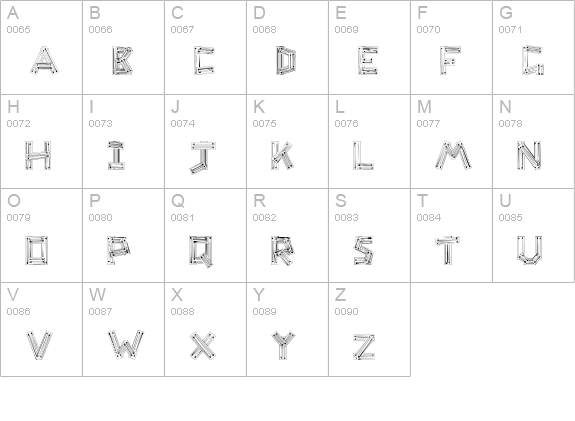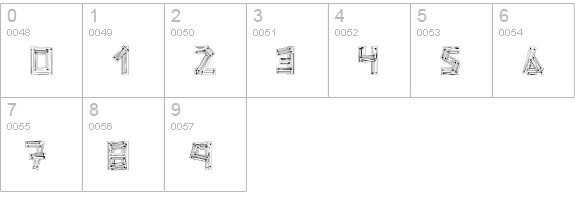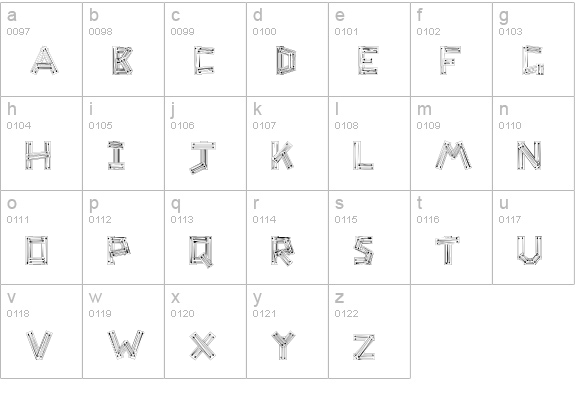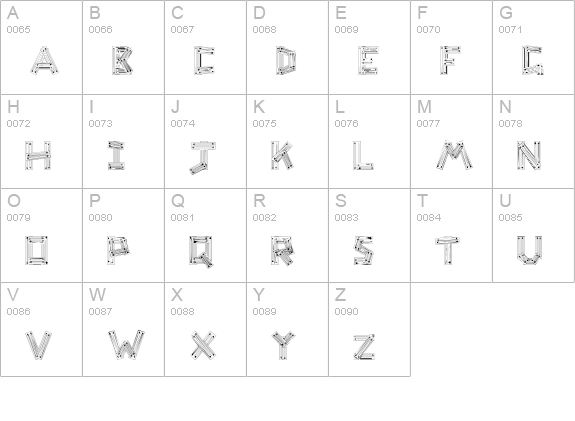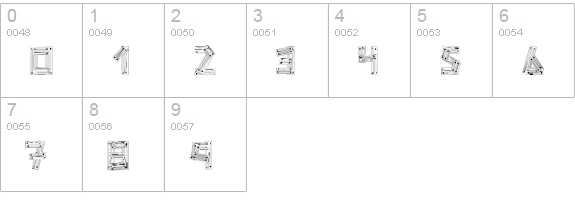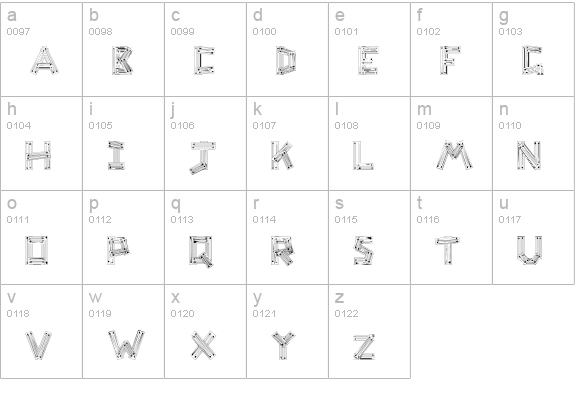
Boards font is a captivating and versatile typeface that exudes a modern and stylish aesthetic. With its clean lines and contemporary design, Boards font is perfect for a wide range of design projects, from branding to editorial layouts. This sleek and sophisticated font is sure to make a statement and elevate any design it is used in. The best part? Boards font is completely free to download at FontsMarket.com! This means you can easily access this stunning typeface and incorporate it into your projects without any cost. Don't miss out on the opportunity to enhance your designs with the sleek and stylish Boards font, available for free at FontsMarket.com.